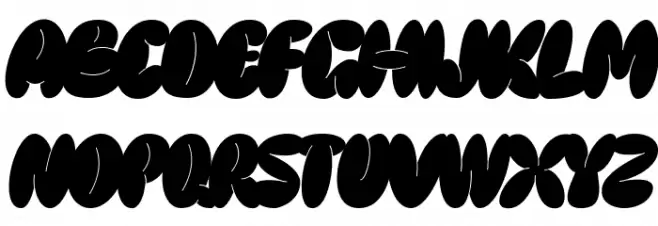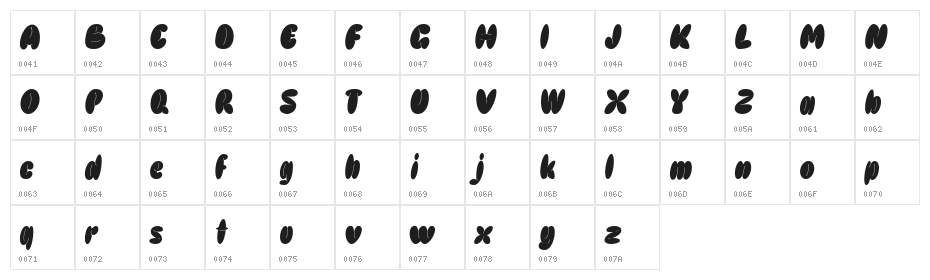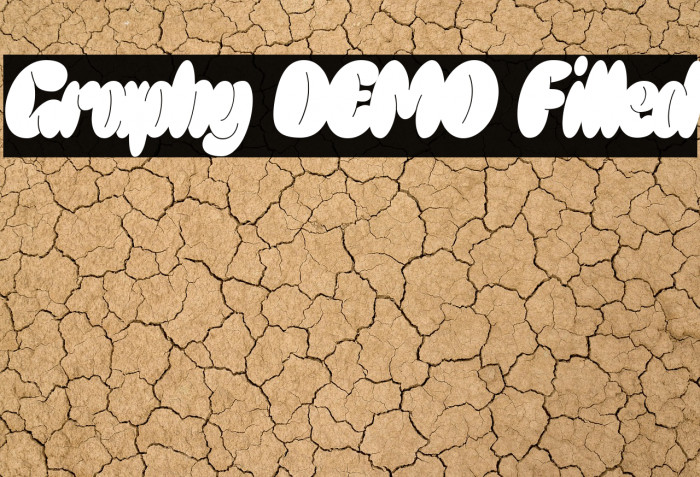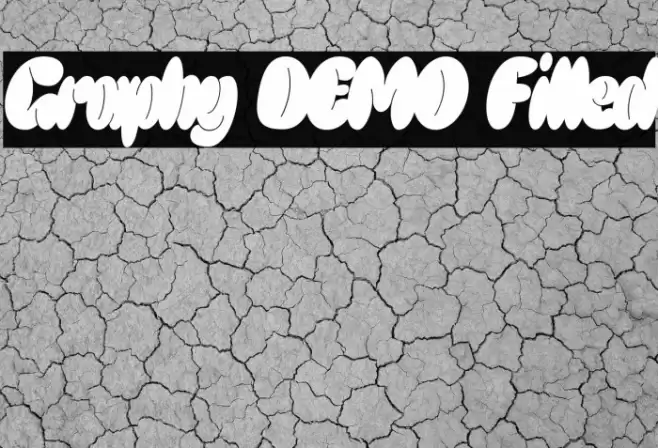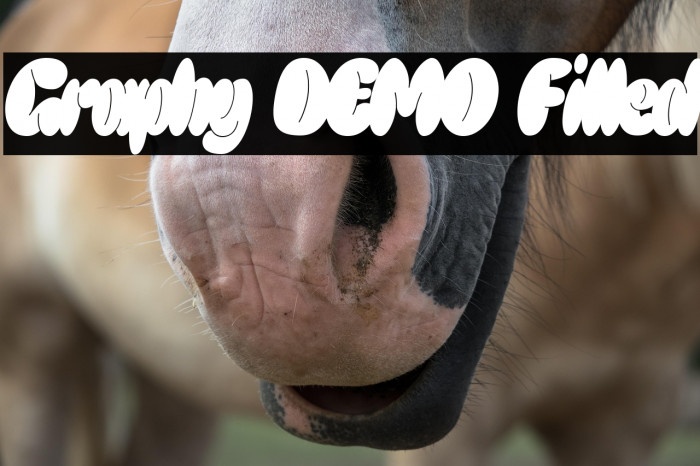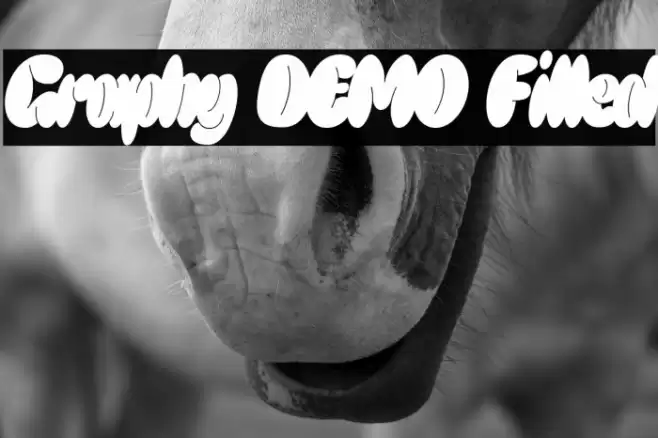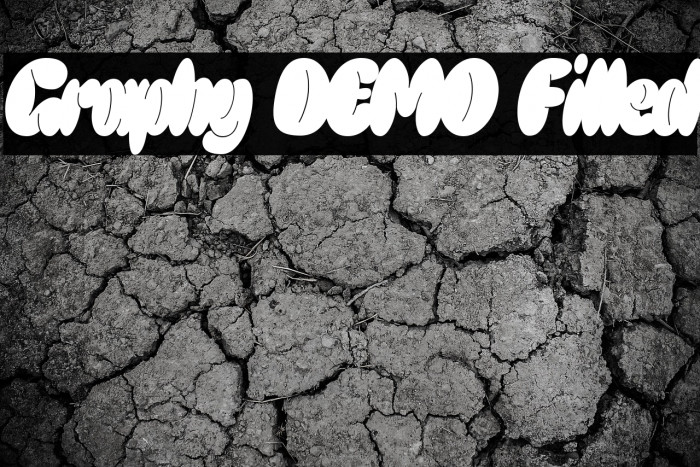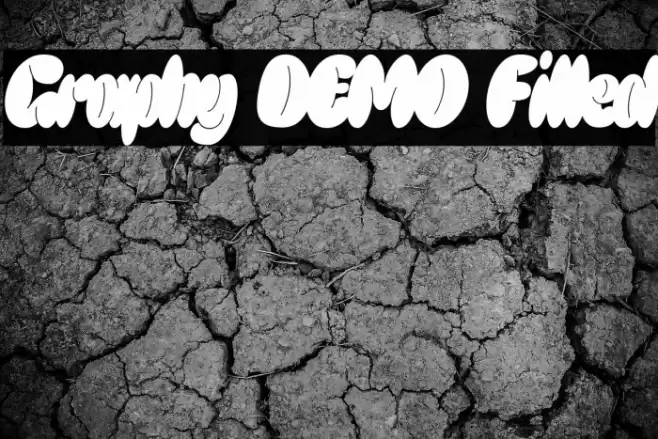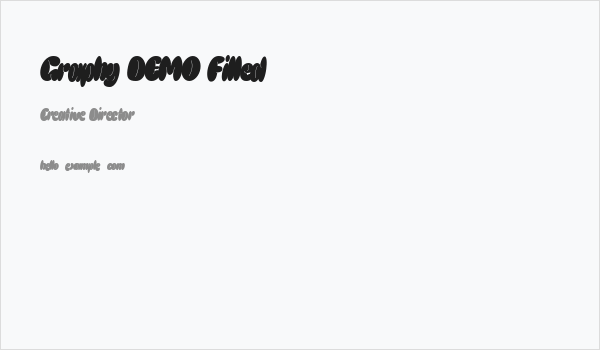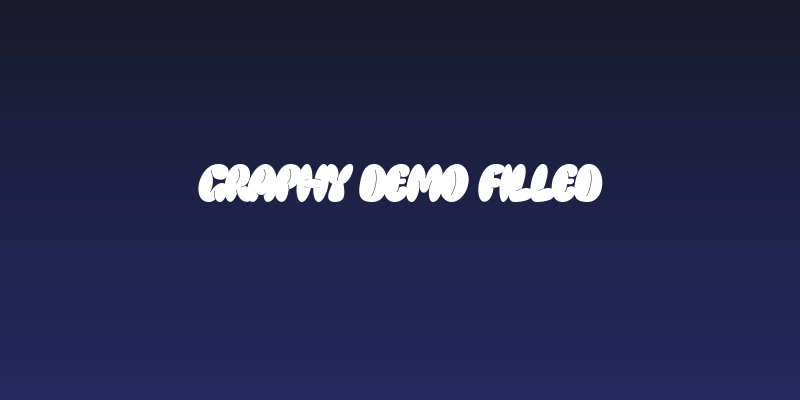
Graphy DEMO Filled Font
Graphy DEMO Filled Description
This font features a bold, playful style with thick, rounded characters that create a sense of fun and creativity. The letters are closely spaced, enhancing the compact and cohesive look. The high contrast between the thick strokes and the negative space gives it a striking appearance, making it ideal for attention-grabbing designs. The font's unique, decorative style is well-suited for projects that aim to convey a sense of whimsy and boldness. Its distinctiveness makes it perfect for branding, posters, and other creative endeavors where a strong visual impact is desired.
| Overall Style | Playful, Bold, Decorative |
| Proposed Projects | Branding, posters, creative designs, children's books, and any project requiring a bold visual impact. |